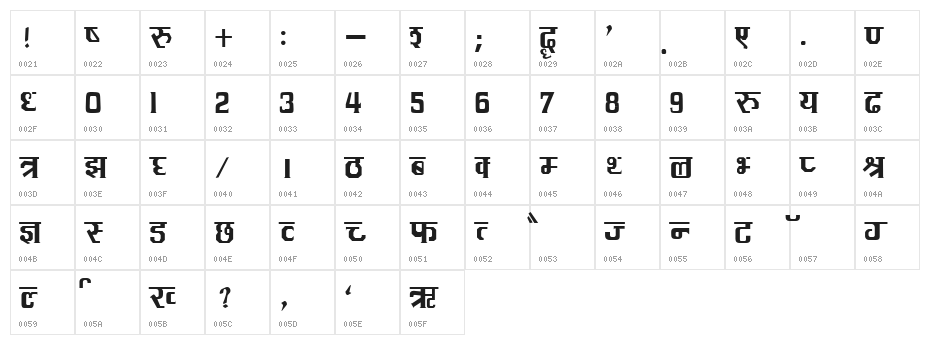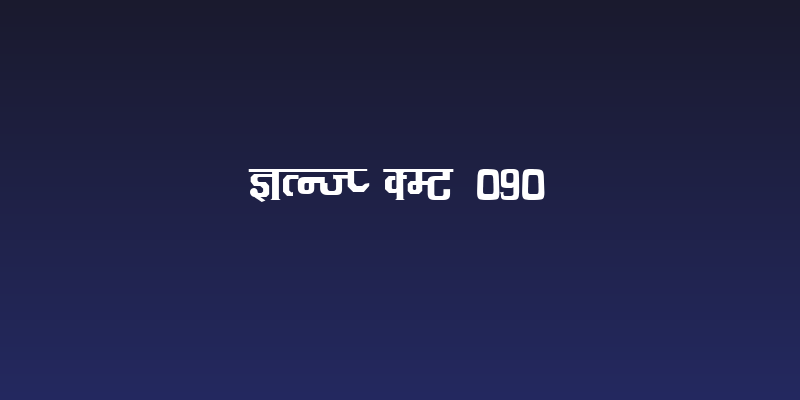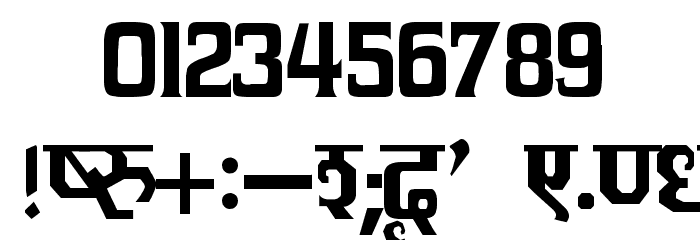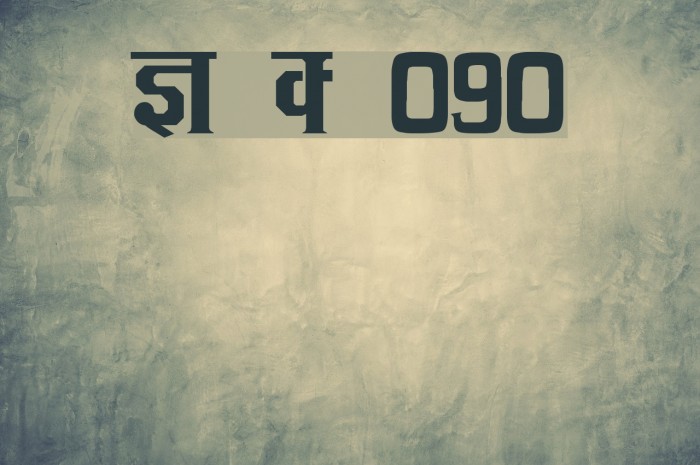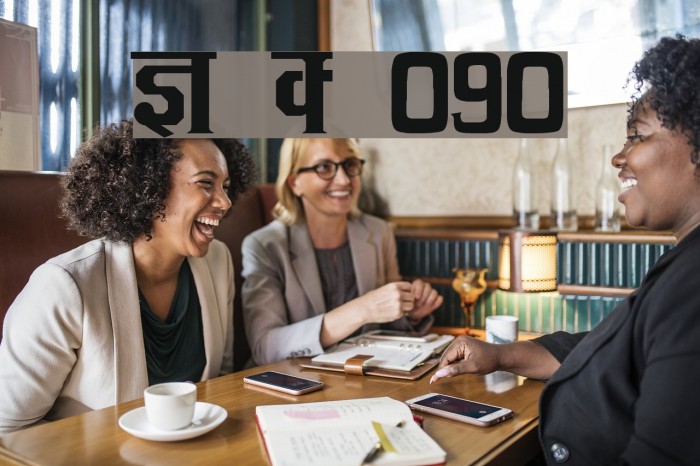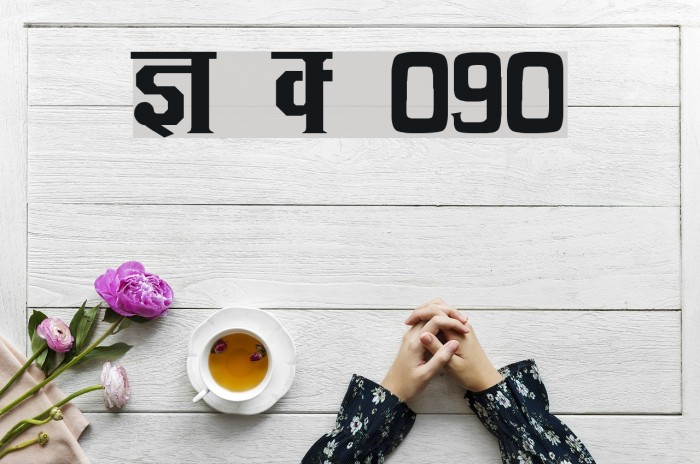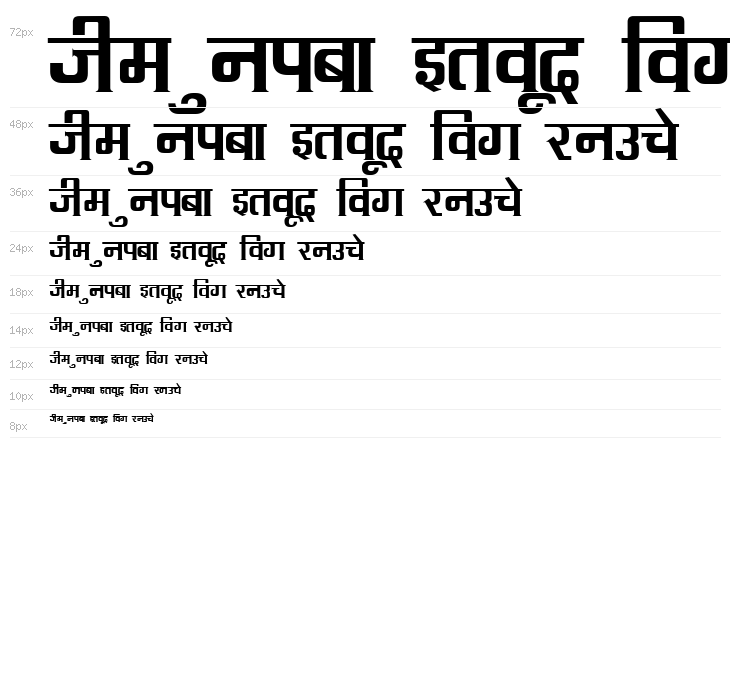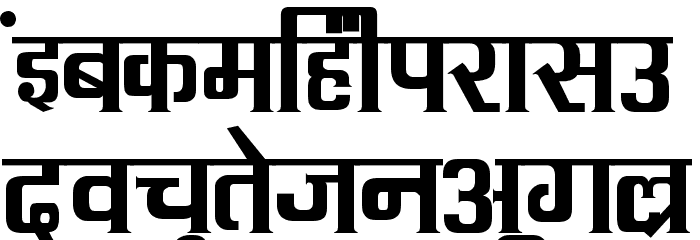
Kruti Dev 090 Font
Kruti Dev 090 Description
This font exhibits a bold and structured design, characterized by its angular and geometric shapes. The characters are crafted with a strong emphasis on vertical and horizontal lines, giving it a robust and impactful appearance. The font maintains a consistent stroke width throughout, contributing to its uniformity and balance. It is designed to convey clarity and strength, making it suitable for attention-grabbing displays. The numerals and special characters follow the same design principles, ensuring a cohesive look across all elements. The font's style is reminiscent of traditional Indian scripts, offering a cultural touch while maintaining modern readability.
| Overall Style | Traditional, Modern |
| Proposed Projects | Ideal for cultural event posters, signage, branding materials, and any project requiring a bold, traditional aesthetic. |